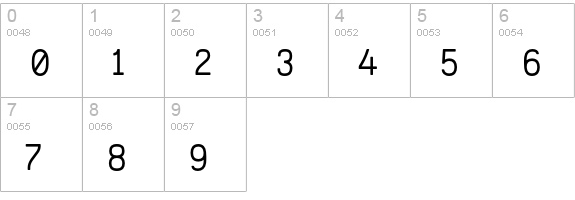
Neighbourhood font is a modern and stylish typeface that effortlessly combines elegance with a touch of urban flair. With its clean lines and contemporary appeal, Neighbourhood is perfect for a wide range of design projects, from branding to editorial design. What sets Neighbourhood font apart is its versatility - it can be used for both headlines and body text, making it a great choice for designers looking for a font that can do it all. Its sleek and sophisticated aesthetic makes it ideal for projects that require a modern and professional look. Best of all, Neighbourhood font is available for free download at FontsMarket.com. So whether you're a seasoned designer looking to add a fresh new font to your collection or a student working on a project, Neighbourhood font is a fantastic choice that won't break the bank. Download it today and elevate your designs with this stylish and contemporary typeface.